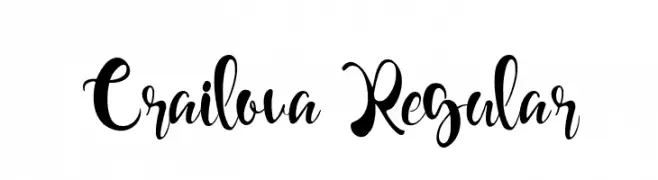
A flowing, cursive font with elegant curves and interconnected characters.
A bold, expressive handwritten font with brush-like strokes.
A bold, playful font with rounded edges and a hand-drawn feel.
A rugged, distressed serif font with a vintage, worn-out look.
( Cramaten is a free condensed typeface with multilingual support. )
A tall, narrow font with a modern, geometric style.
A gritty, horror-themed font with distressed, textured characters and unique special symbols.
A bold, textured font with a distressed, grunge-like style.